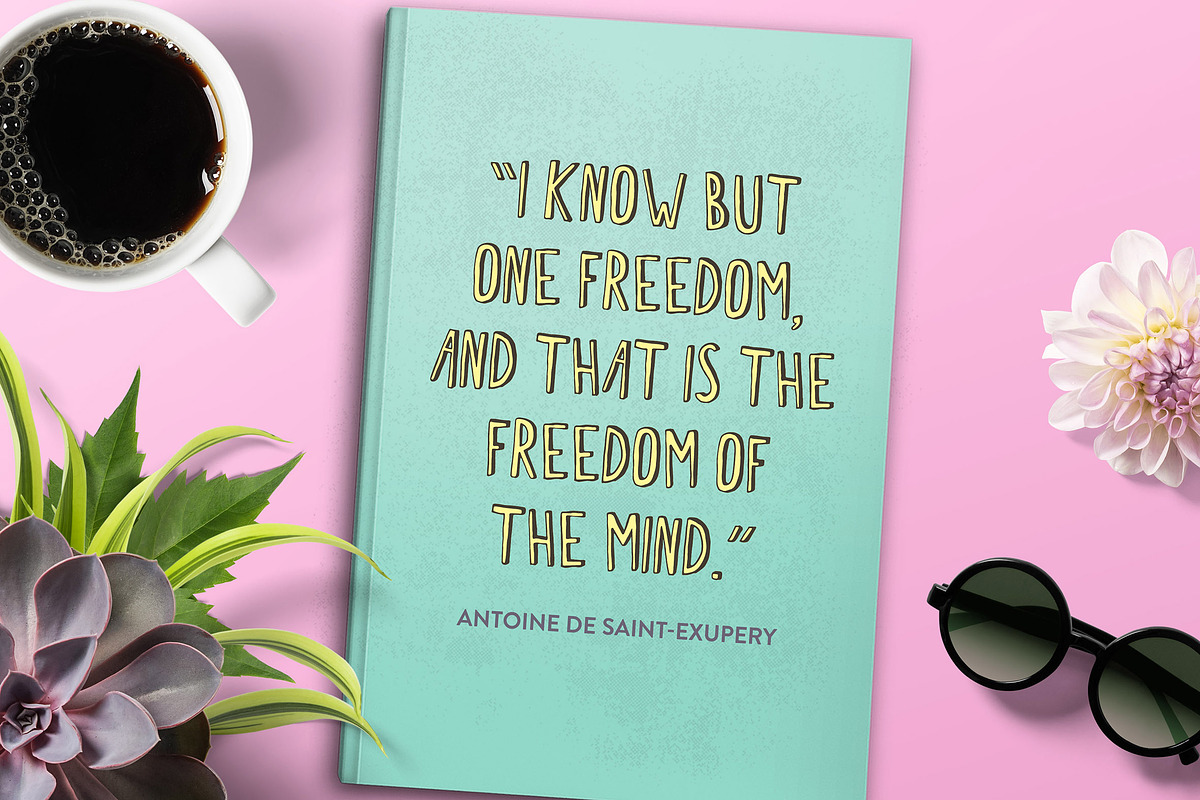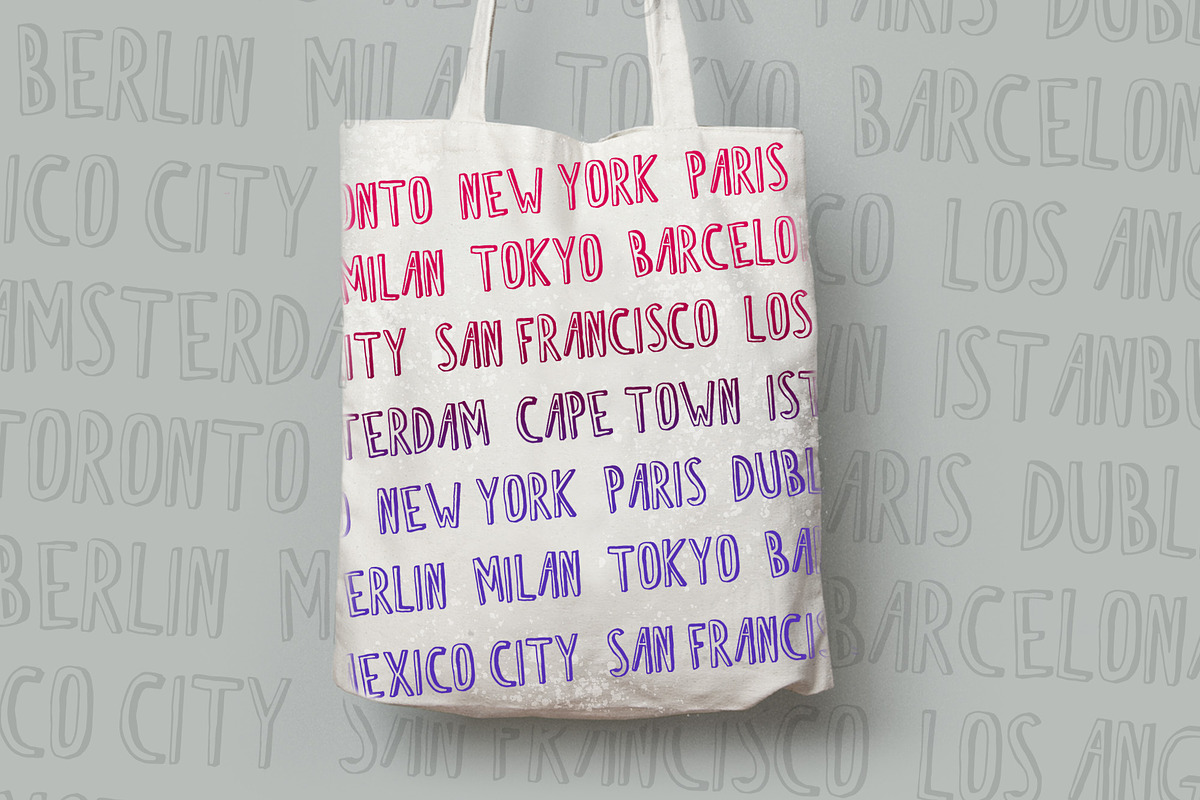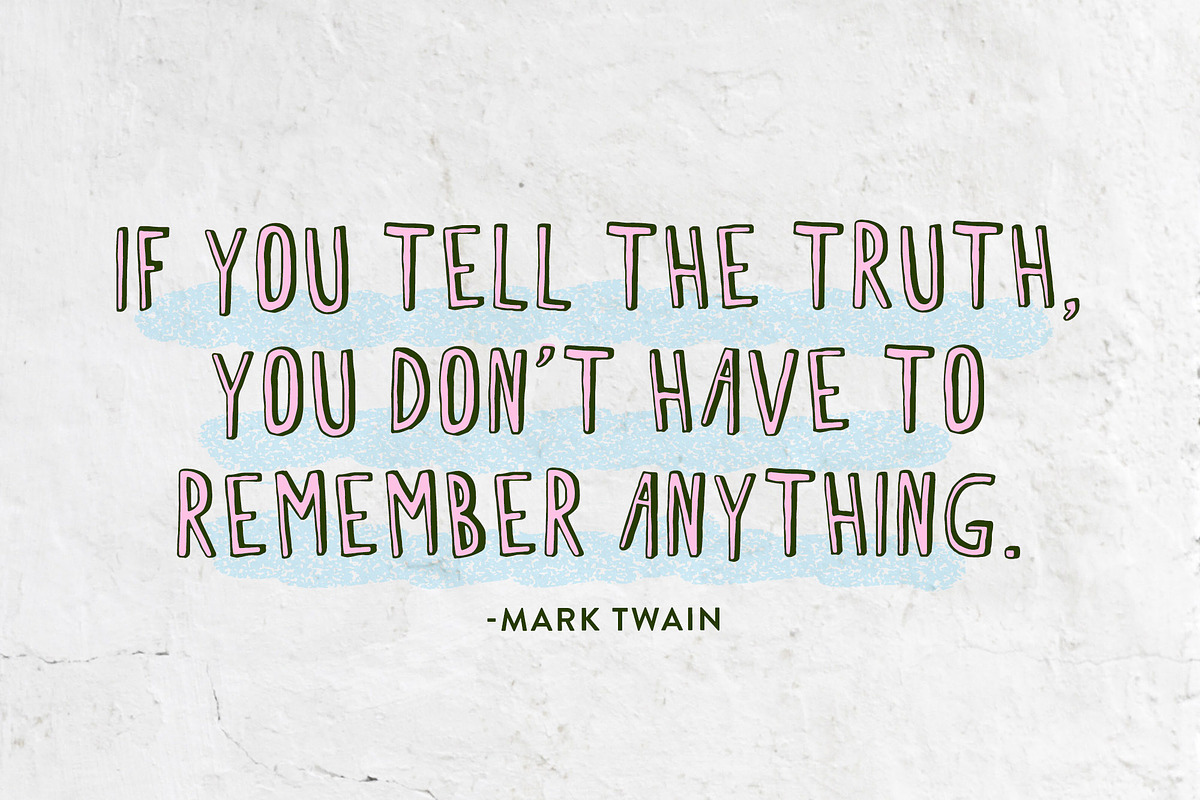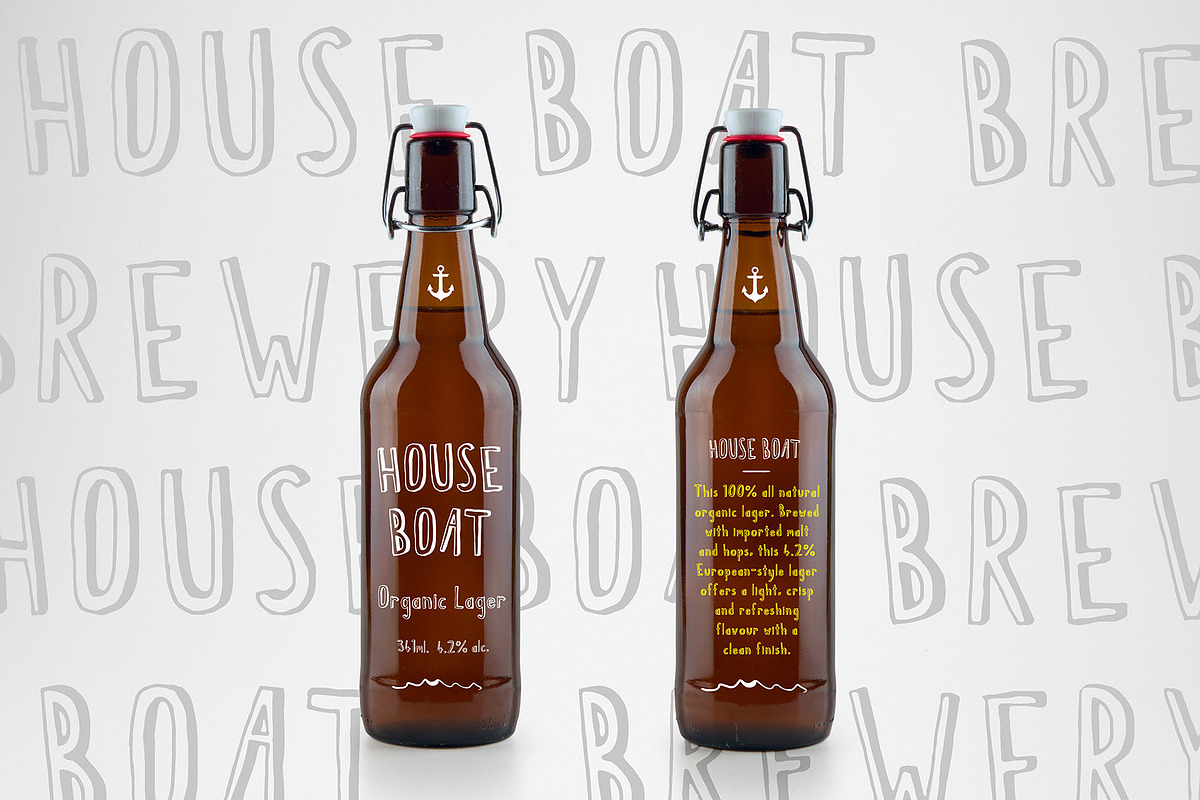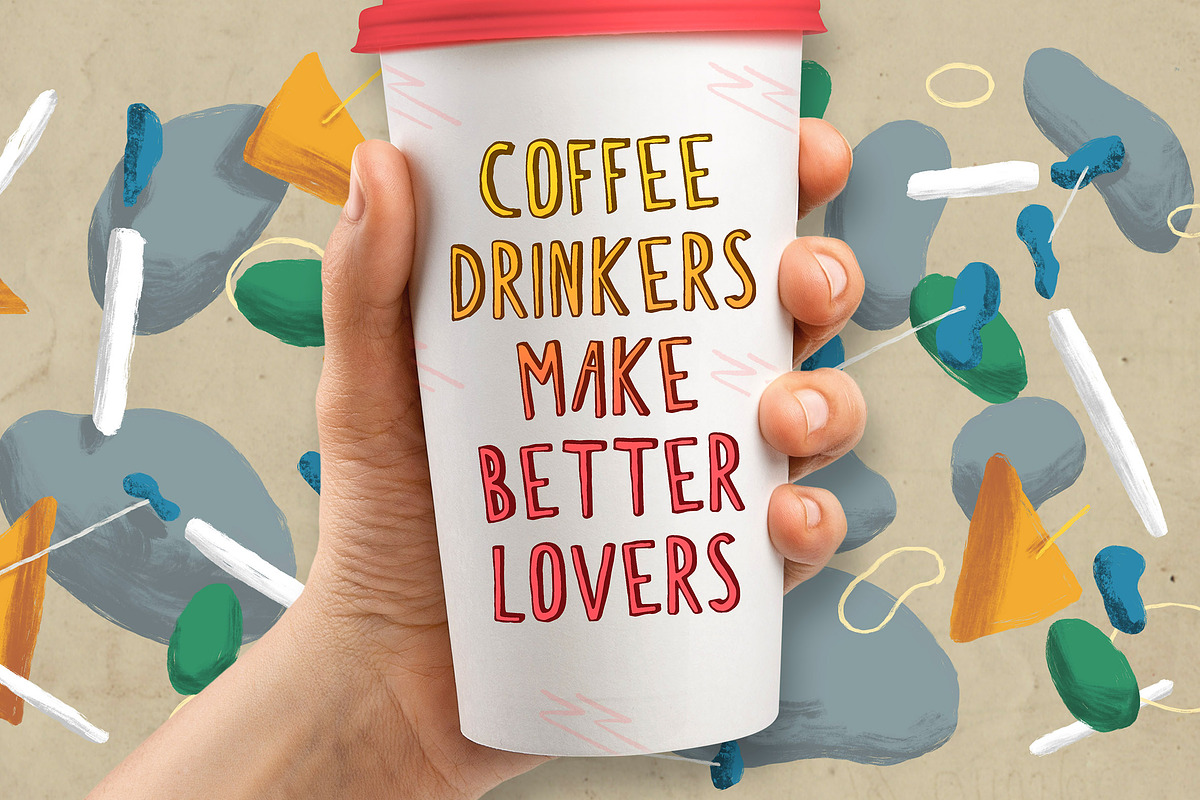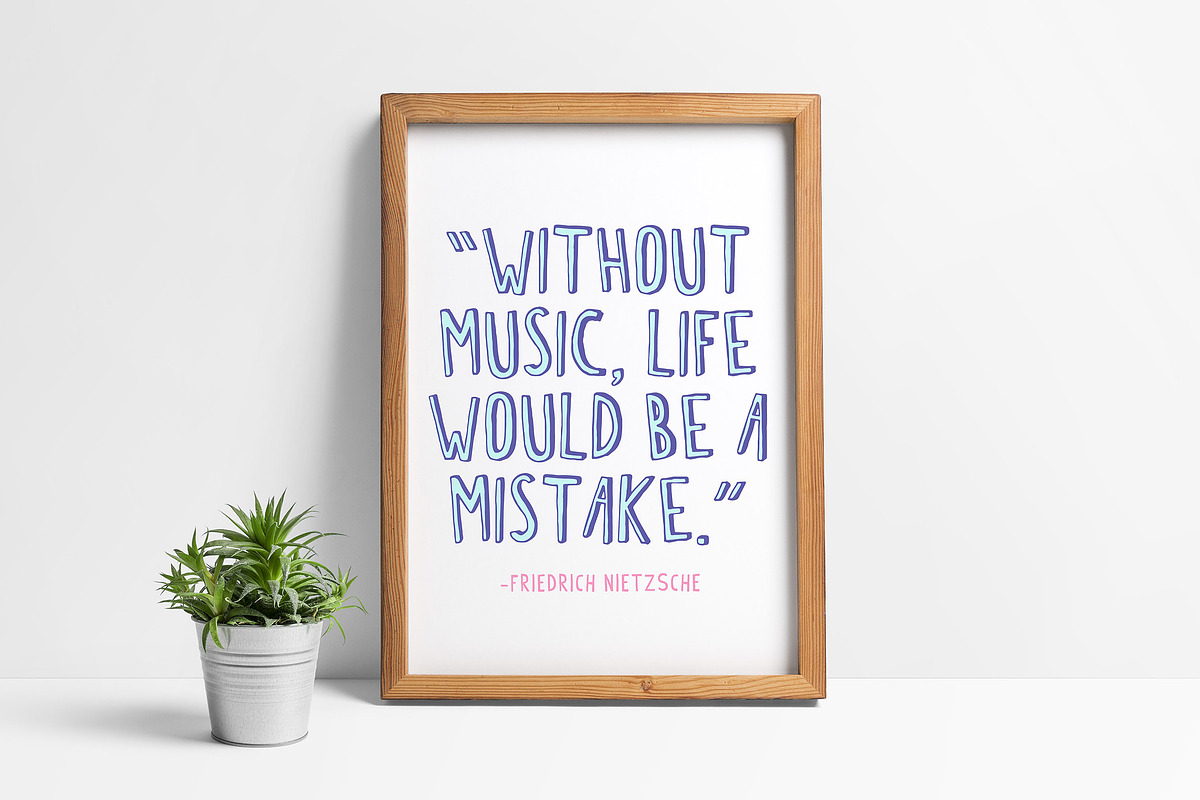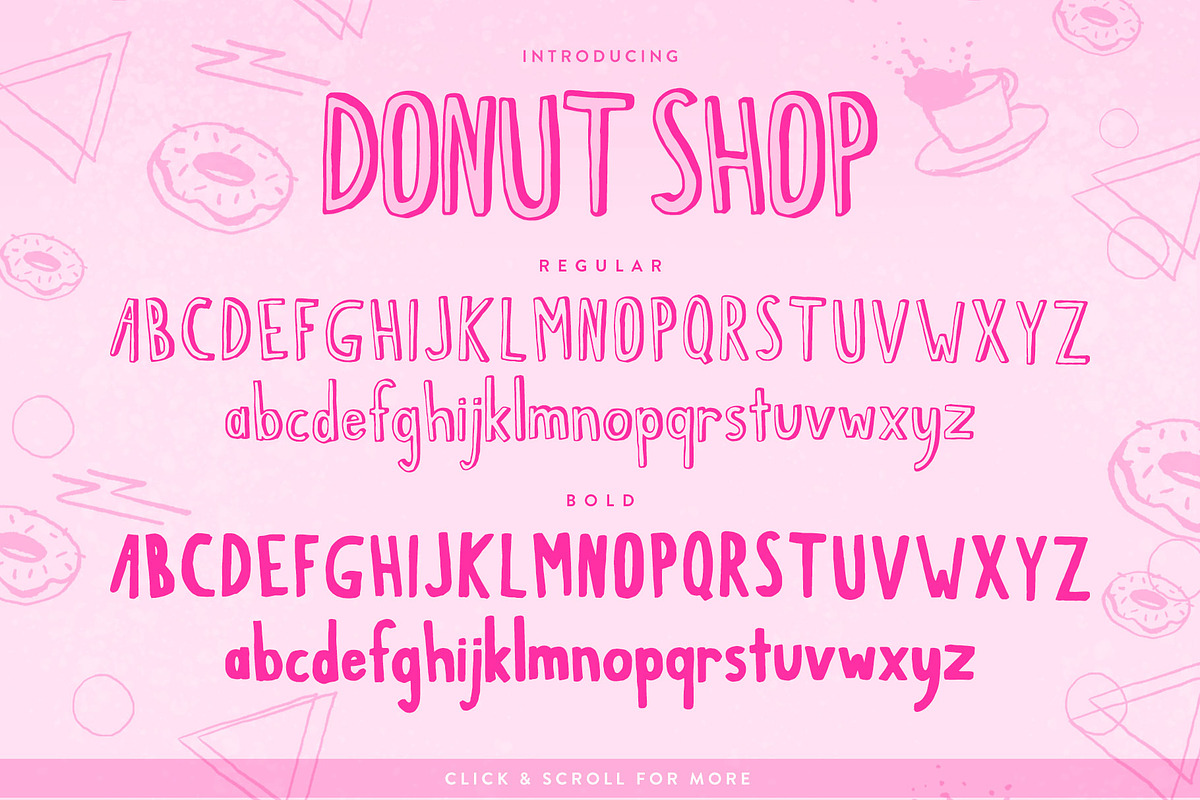
Donut Shop Font Duo
Donut Shop is a fun, bold and exuberant font duo perfect for playful projects - posters for an outdoor film fest, gourmet donut shop menus or the cover of a graphic novel.
Great for applications ranging in feel from colourful, retro and urban to something a little more rustic, local and down-to-earth, Donut Shop will give your work a hand-drawn personal touch.
- DonutShop Regular
- DonutShop Bold